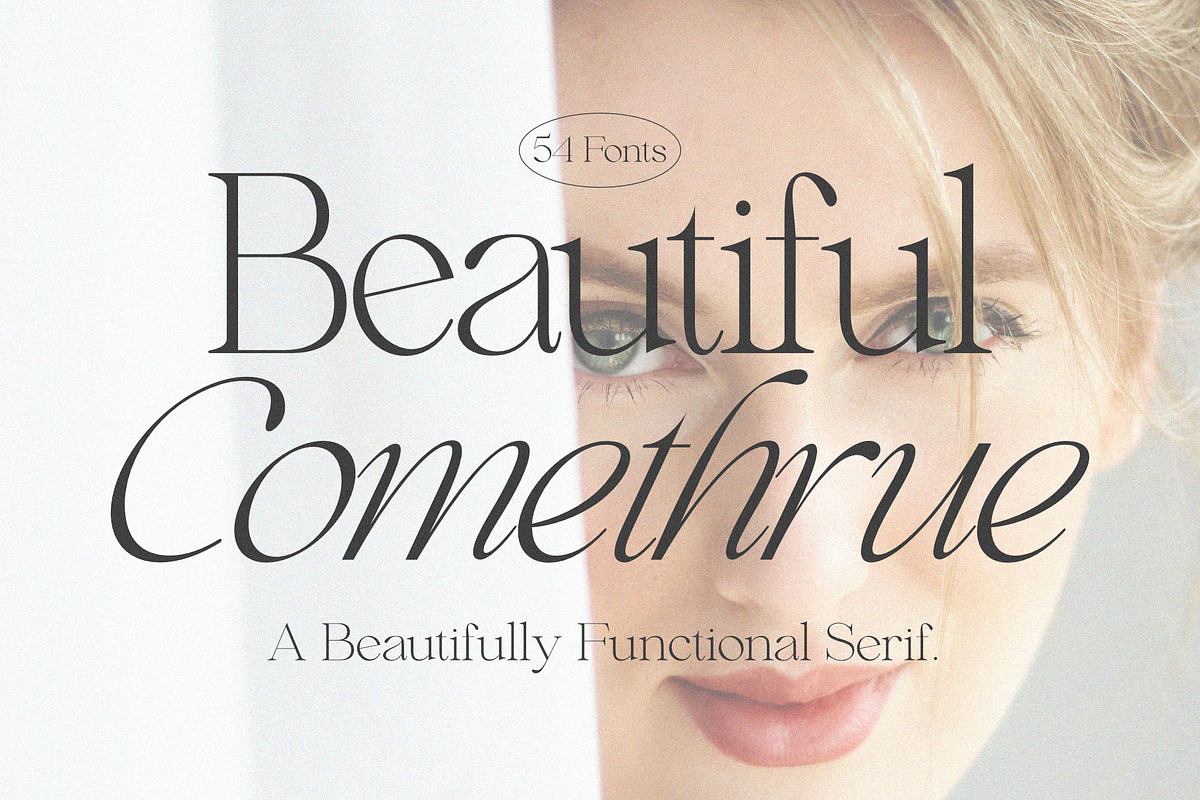
The Beautiful Comethrue Family - 54 Fonts Free Download is a comprehensive collection of 54 stunning typefaces, perfect for a wide range of creative projects. With a mix of elegant scripts, clean serifs, modern sans-serifs, and decorative fonts, this family provides everything you need for logos, branding, web design, posters, invitations, and more.
This versatile font family offers multiple weights, styles, and variations, allowing you to create diverse typographic compositions with ease. Whether you're designing for print or digital media, Beautiful Comethrue ensures a polished and professional look for any project.
With uppercase and lowercase letters, numbers, punctuation, and multilingual support, this collection is highly adaptable for various creative applications.